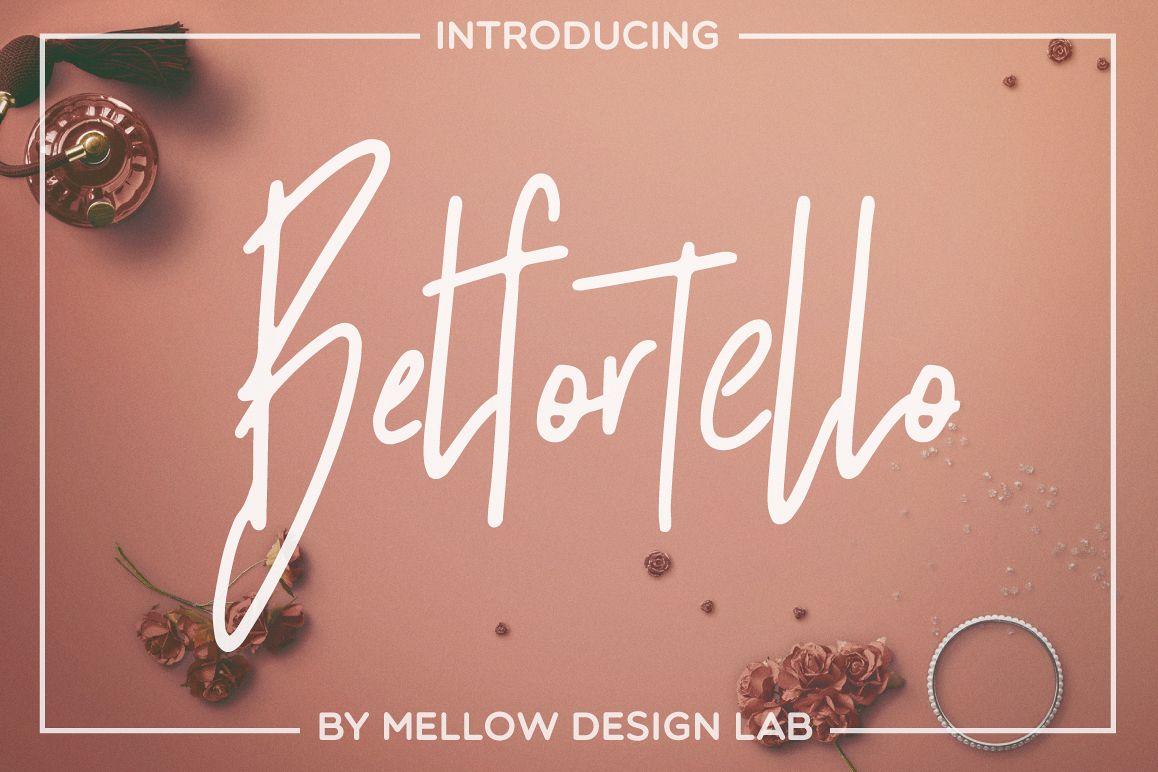
Belfortello
Romantic Script font with Alternative Letters. Lovely fonts would be perfect to combine in your design. This fonts are perfect for your blog or postcard for wedding. Also with their help, you can create a logo or beautiful frame for your home. Or just use for your small business, book covers, stationery, marketing, magazines.
Belfortello Script.
Belfortello
By Mellow Design Lab